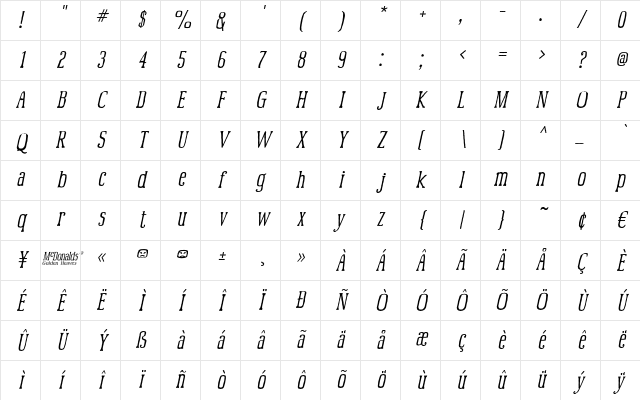
McFood Poisoning 2 Regular
Design Context for McFood Poisoning 2
McFood Poisoning 2 is a composed and adaptable typeface that performs quietly and consistently across a wide range of design contexts.